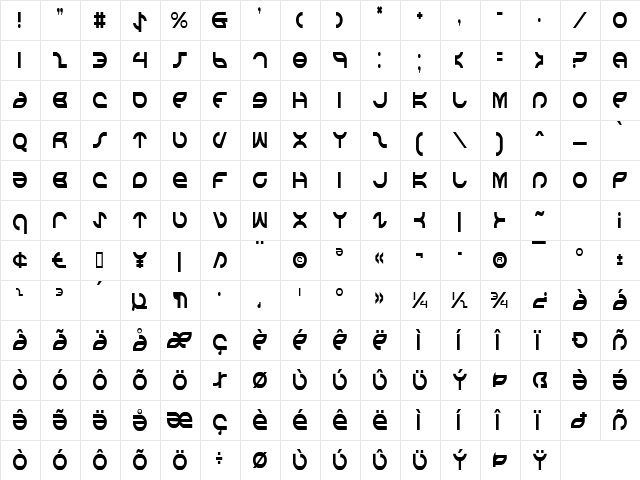
Aetherfox Condensed Condensed
Design Context for Aetherfox Condensed Typeface
Aetherfox Condensed is a composed and adaptable typeface that performs quietly and consistently across a wide range of design contexts. The condensed width makes it efficient for tight spaces without sacrificing legibility.